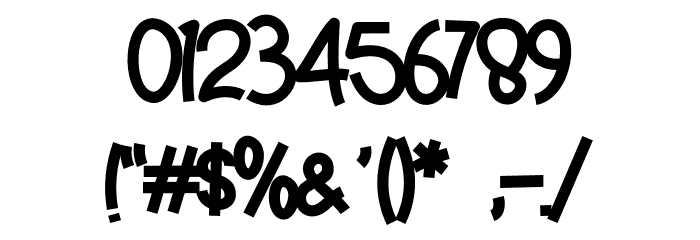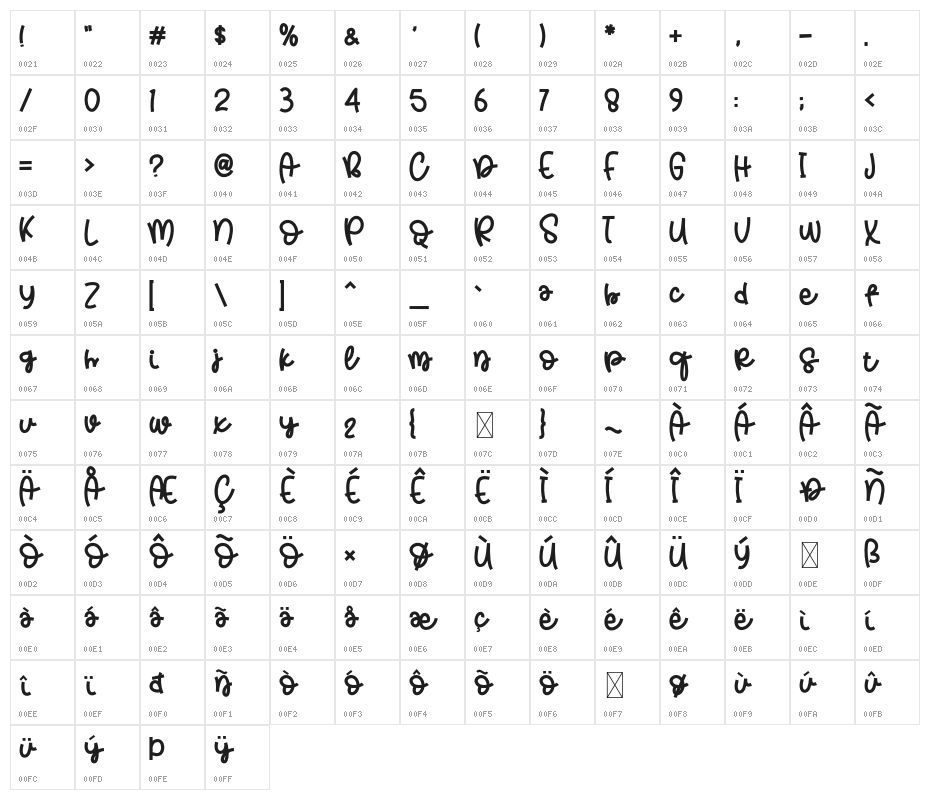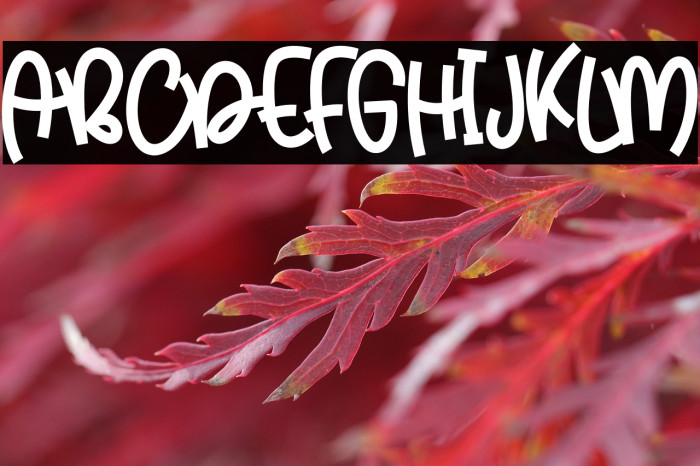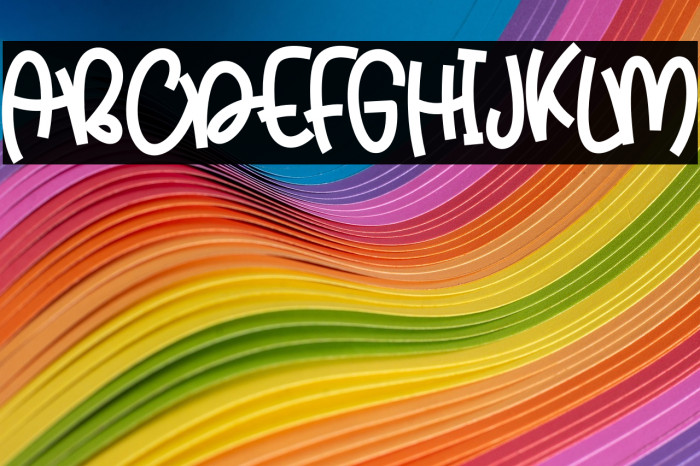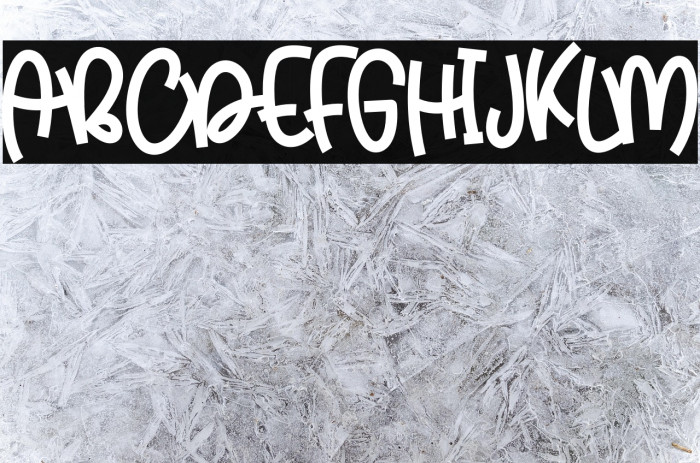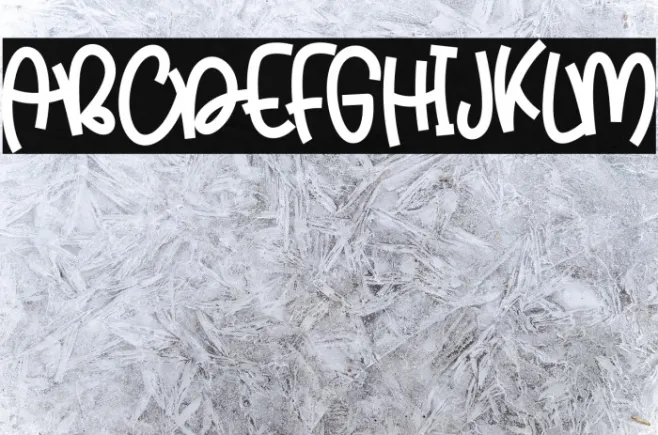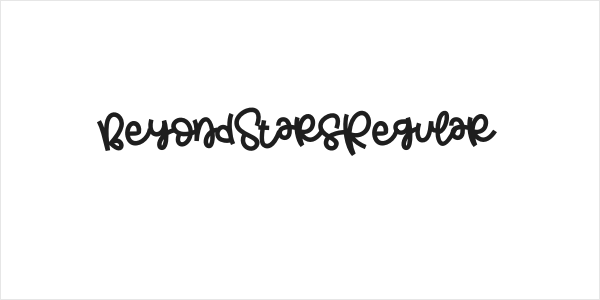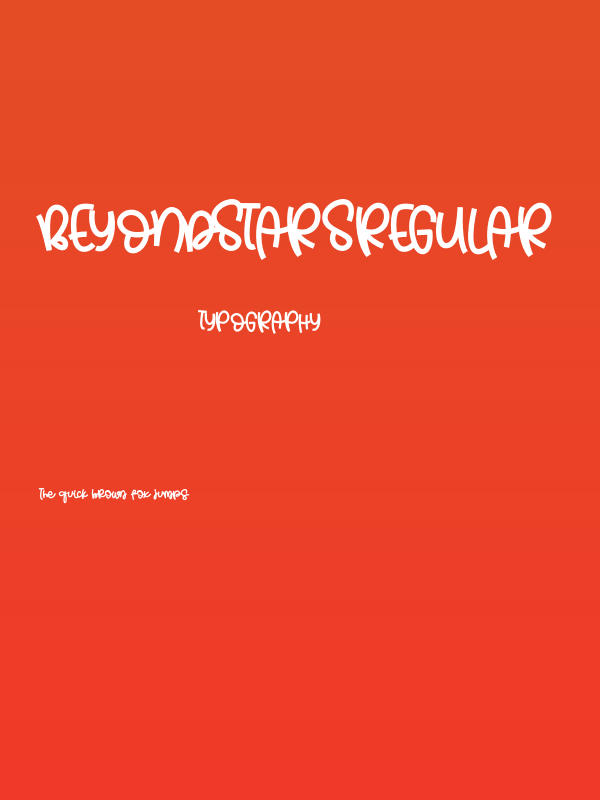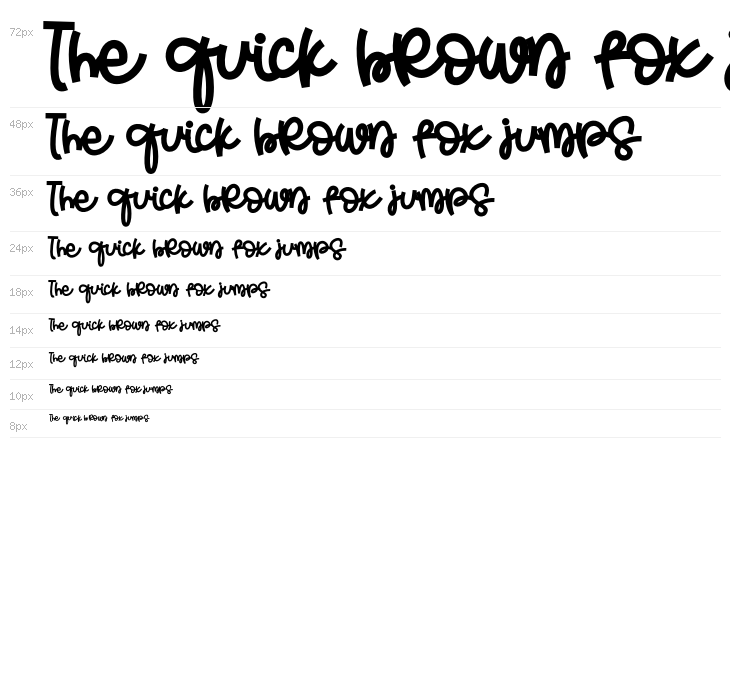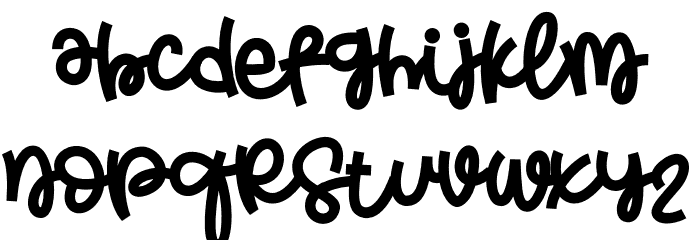
BeyondStarsRegular Font
BeyondStarsRegular Description
This playful and energetic font features a handwritten style with bold, rounded strokes that convey a sense of fun and creativity. The letters are slightly slanted, adding a dynamic flow to the text. The uppercase and lowercase characters maintain a consistent style, with a whimsical touch that makes them stand out. The numbers and special characters are equally expressive, ensuring a cohesive look across all text elements. This font is perfect for projects that require a personal and informal touch, such as invitations, greeting cards, or playful branding.
Overall StylePlayful
Use CaseLogos, Headlines, Informal Text
Proposed ProjectsIdeal for invitations, greeting cards, playful branding, and creative projects.